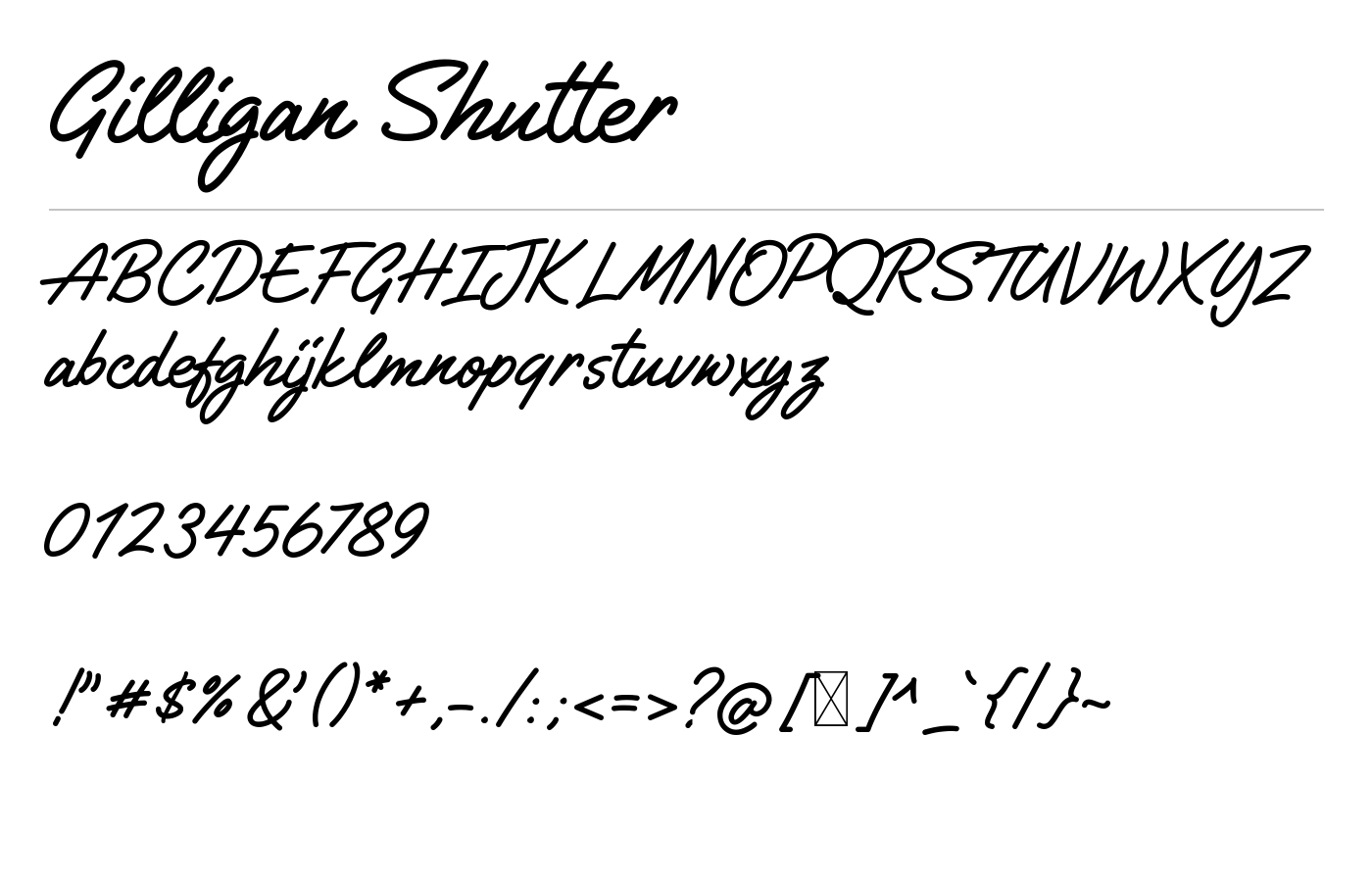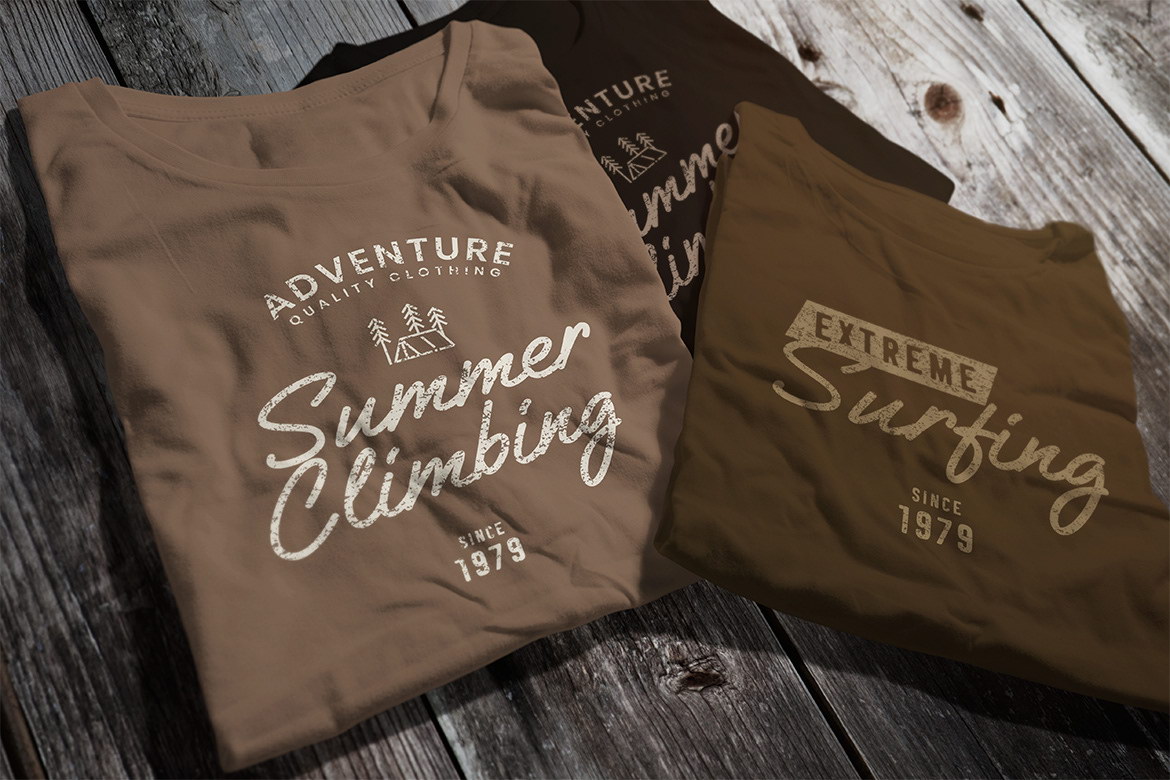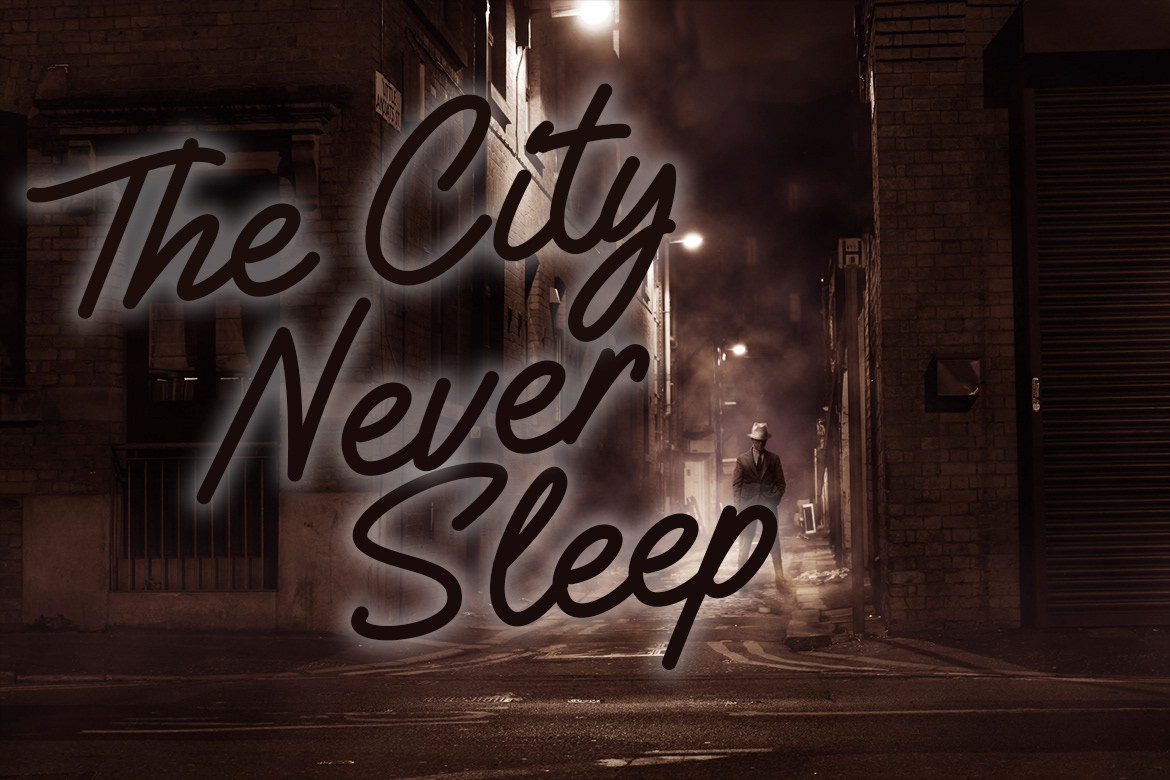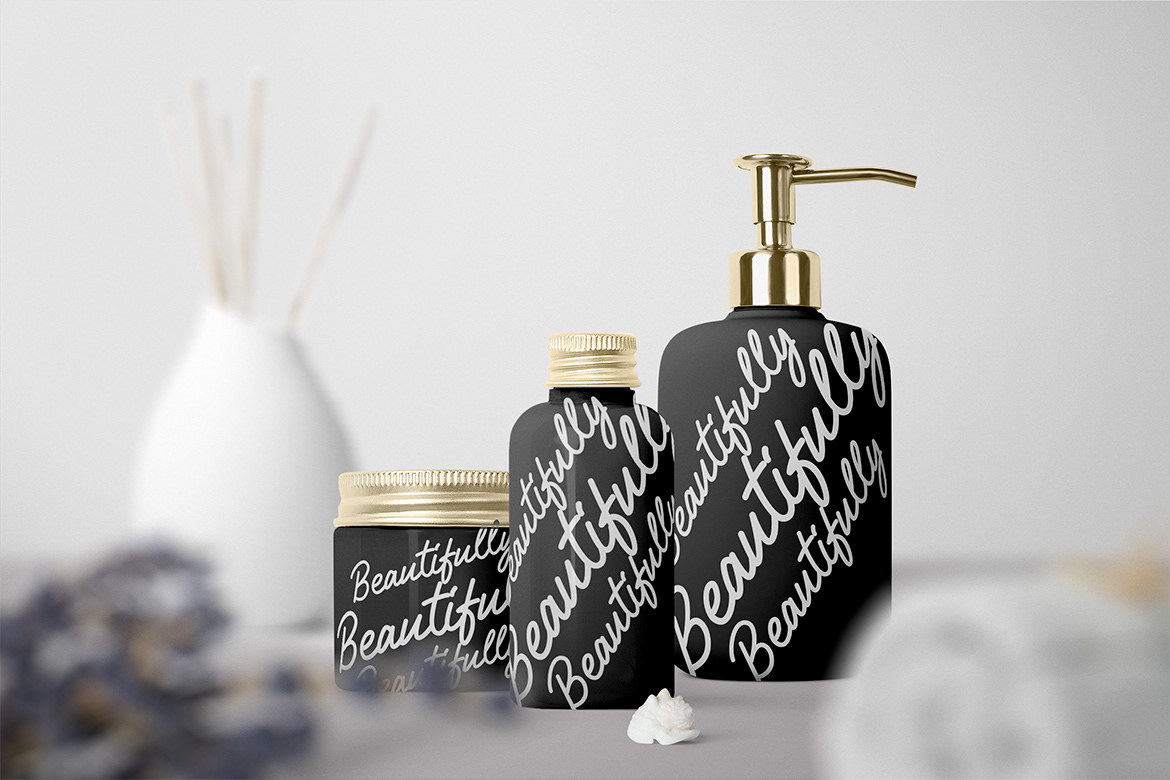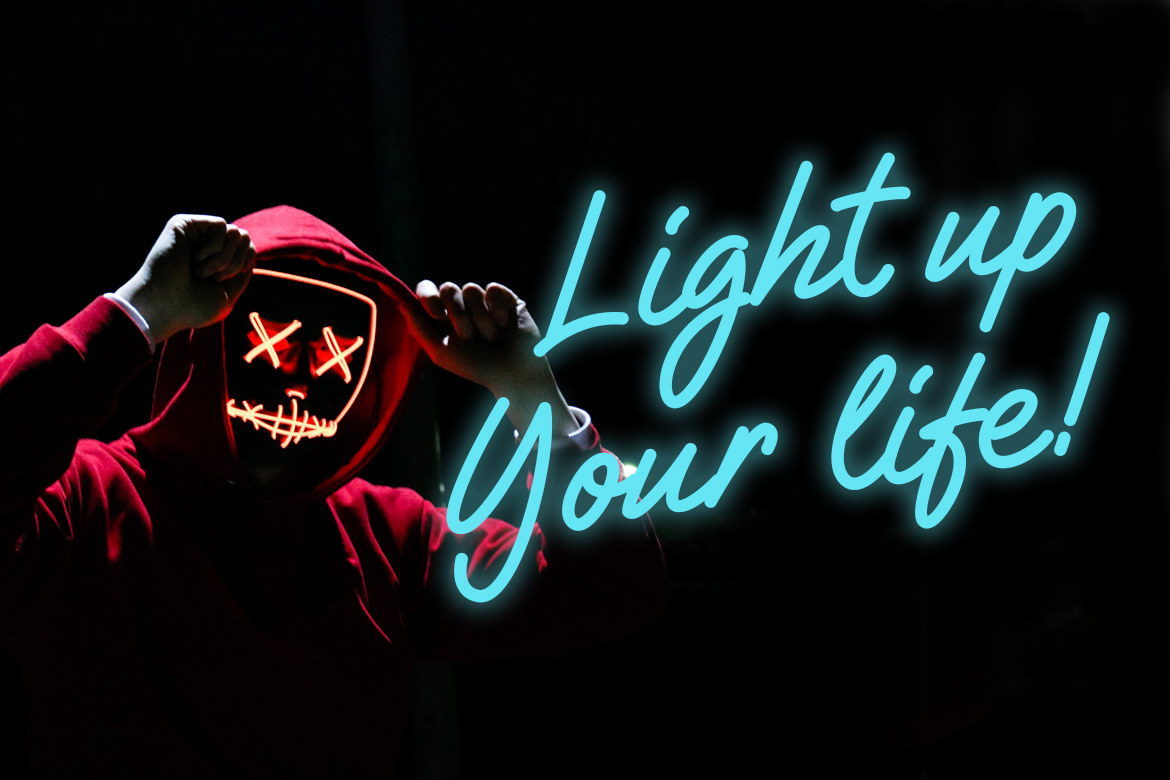
Gilligan Shutter is a monoline script font featuring smooth, flowing letterforms that combine casual elegance with legibility. Its moderately tall x-height and consistent stroke weight give it a friendly yet refined personality, making it ideal for invitations, branding, and creative headlines where a personal, handwritten touch is desired. This font works well in designs that seek a warm, approachable feel without sacrificing style or clarity.
Gilligan Shutter Monoline Script Font
About Gilligan Shutter Monoline Script Font